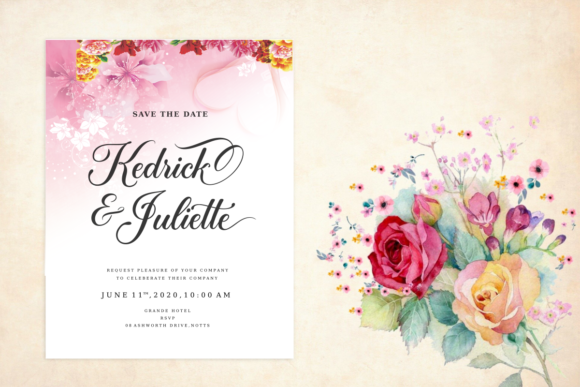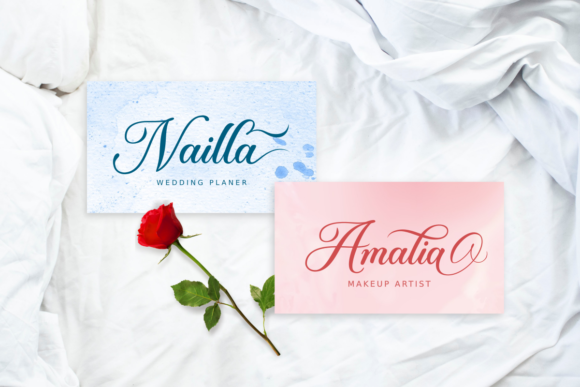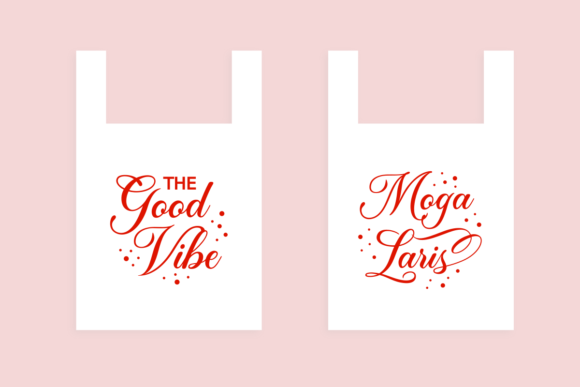
Introduction to Madina Font
Have you ever stared at a blank page, pen in hand, waiting for the perfect phrase to emerge? For designers, those moments of creative clarity are what make all the hard work worth it. And when the right words do come, they deserve a font that’s just as elegant and magical as the idea itself. That’s where the Madina Font comes in – a stunning, high-quality typeface that adds a handwritten touch to any design.
Whether you’re working on a wedding invitation, a thank you card, or a logo for your next big project, the Madina Font is the perfect design resource to bring your creative vision to life. With its smooth lines, gorgeous glyphs, and stunning alternates, this free download is sure to elevate your work and make it stand out from the crowd.
Key Features of Madina Font
- High-quality font with a transparent background, ideal for creative projects that require a unique design resource.
- Designed with a modern and elegant aesthetic, the Madina Font is perfect for use in logos, branding materials, and other visual identity projects.
- With its high-resolution design, the Madina Font can be used in a variety of sizes and resolutions, from small text to large signage and billboards.
- Available in multiple weights and styles, the Madina Font offers a range of design options to suit different creative needs and preferences.
Honest Review: Madina Font
As a designer, I’ve had the chance to work with numerous fonts for my creative projects, but the Madina Font has left a lasting impression. The free download option is definitely a plus, making it an attractive design resource for many of us.
One of the things that works well with the Madina Font is its versatility. It’s suitable for a wide range of creative projects, from branding and logos to digital graphics and even print materials. The high quality of the font is also evident, with clean lines and a professional look.
Another great feature is the transparent background, which makes it easy to use in various design contexts.
- High quality design
- Flexible for various design projects
- Only available in a limited number of styles
- May not be suitable for very formal or traditional designs
Overall, I’m impressed with the Madina Font and would definitely recommend it as a design resource for your next creative project. It’s a great addition to any designer’s toolkit.
The Madina Font is a versatile design resource that can be used in a variety of creative projects, including brochures, posters, business cards, and more. Its transparent background makes it easy to use in combination with other design elements.
Tips for Getting the Most Out of Madina Font
To get the most out of the Madina Font, use it in combination with other design elements, such as images and graphics, to create a visually appealing design. Experiment with different font sizes and styles to add emphasis and create a professional look.